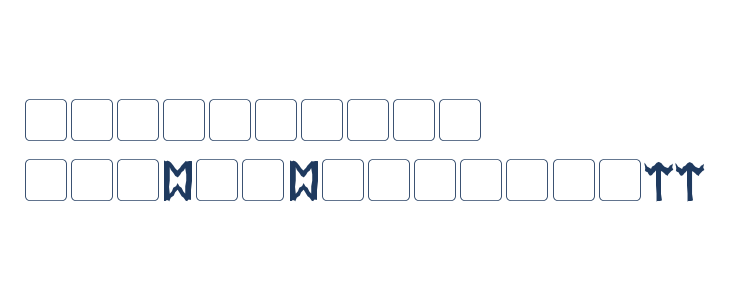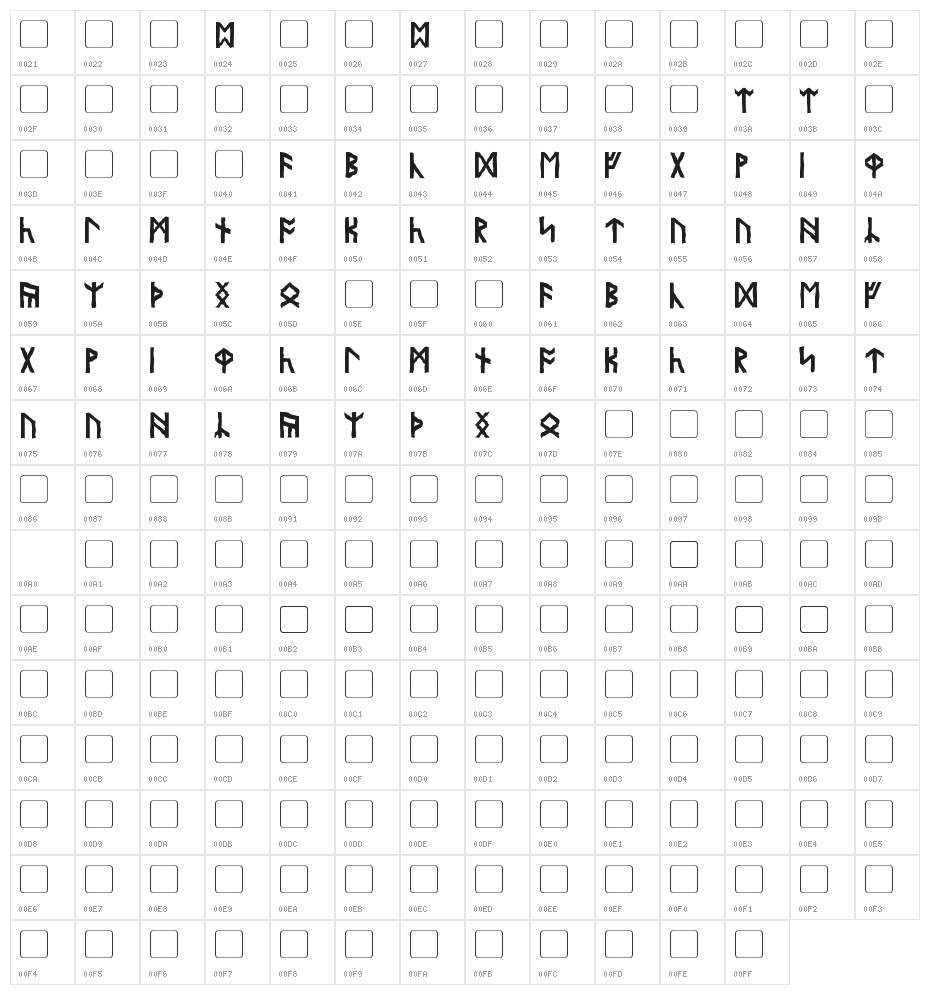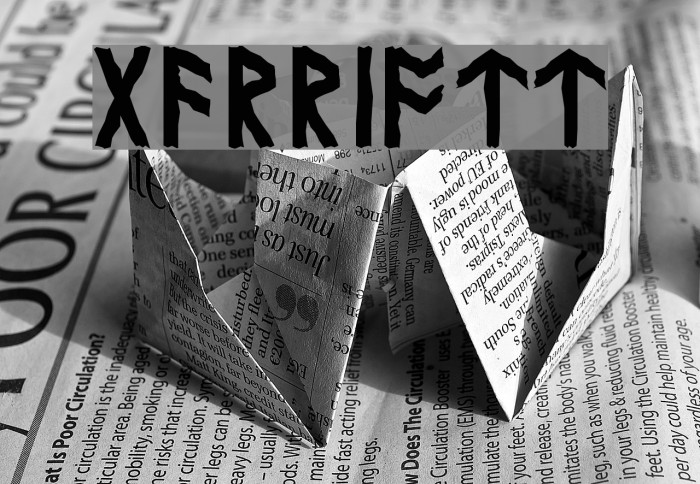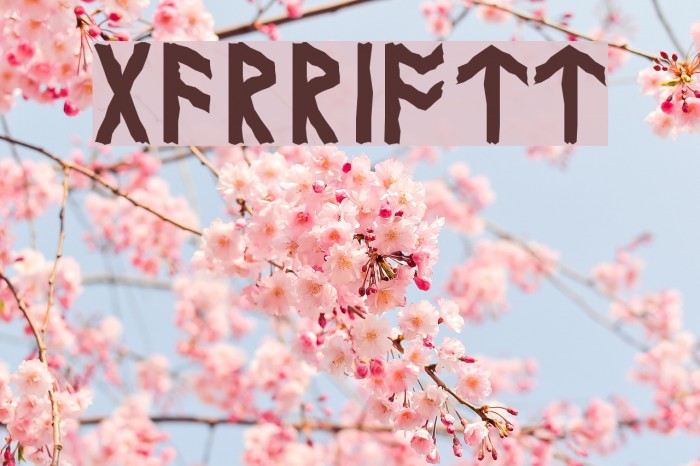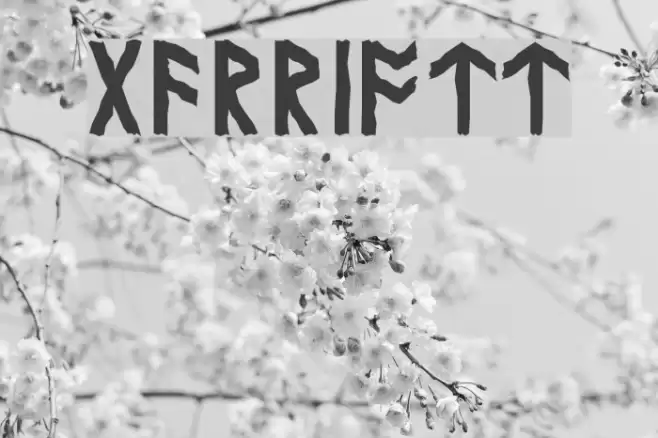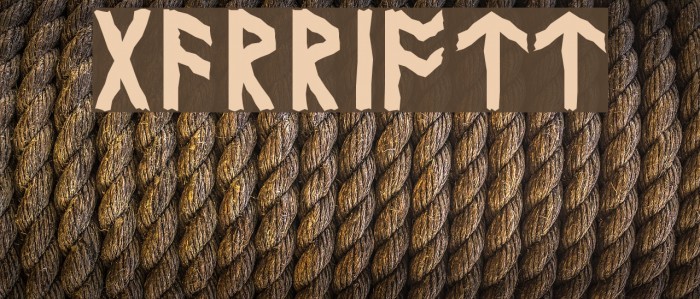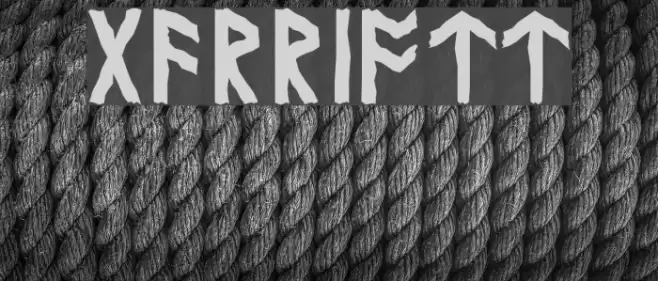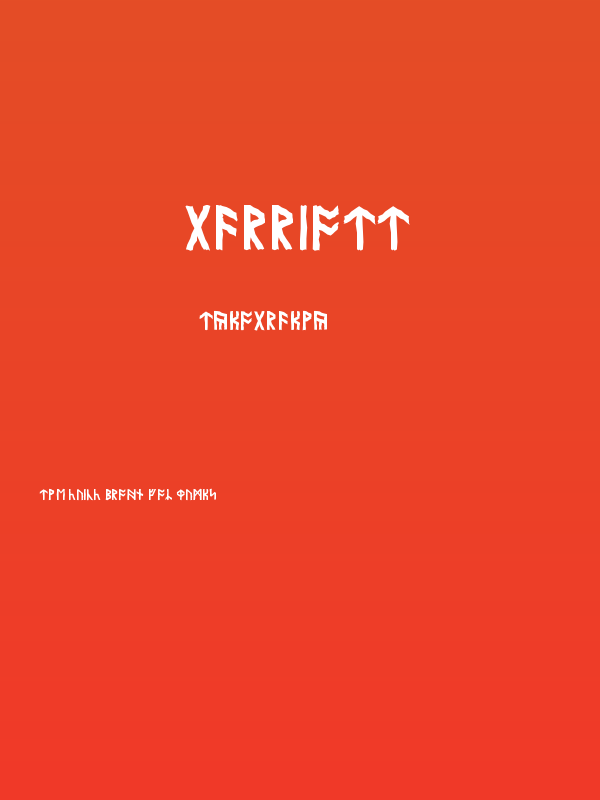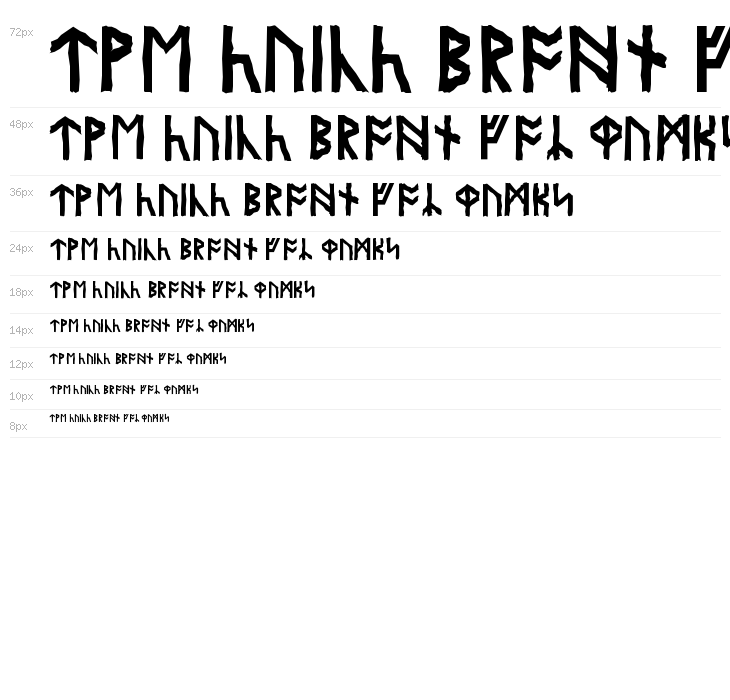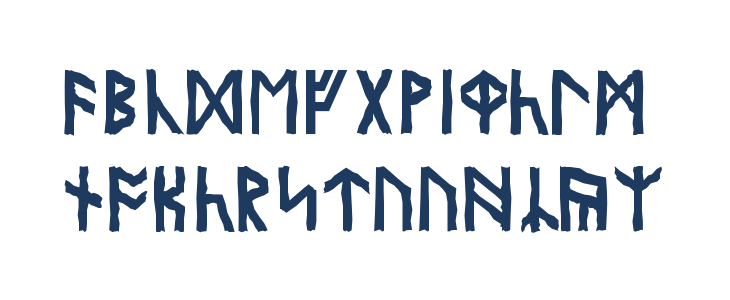
Garriott Font
Garriott Description
This font features a bold, angular design reminiscent of ancient runic alphabets. Each character is crafted with sharp edges and a rugged texture, giving it a distinctly primitive and historical feel. The letters are uniformly bold, with a consistent weight throughout, creating a strong visual impact. The spacing between characters is tight, enhancing the compact and cohesive appearance of the text. This font's unique style makes it suitable for projects that require a touch of antiquity or a mystical, fantasy theme.
GARRIOTT UPPERCASE
GARRIOTT LOWERCASE
GARRIOTT OTHER CHARS